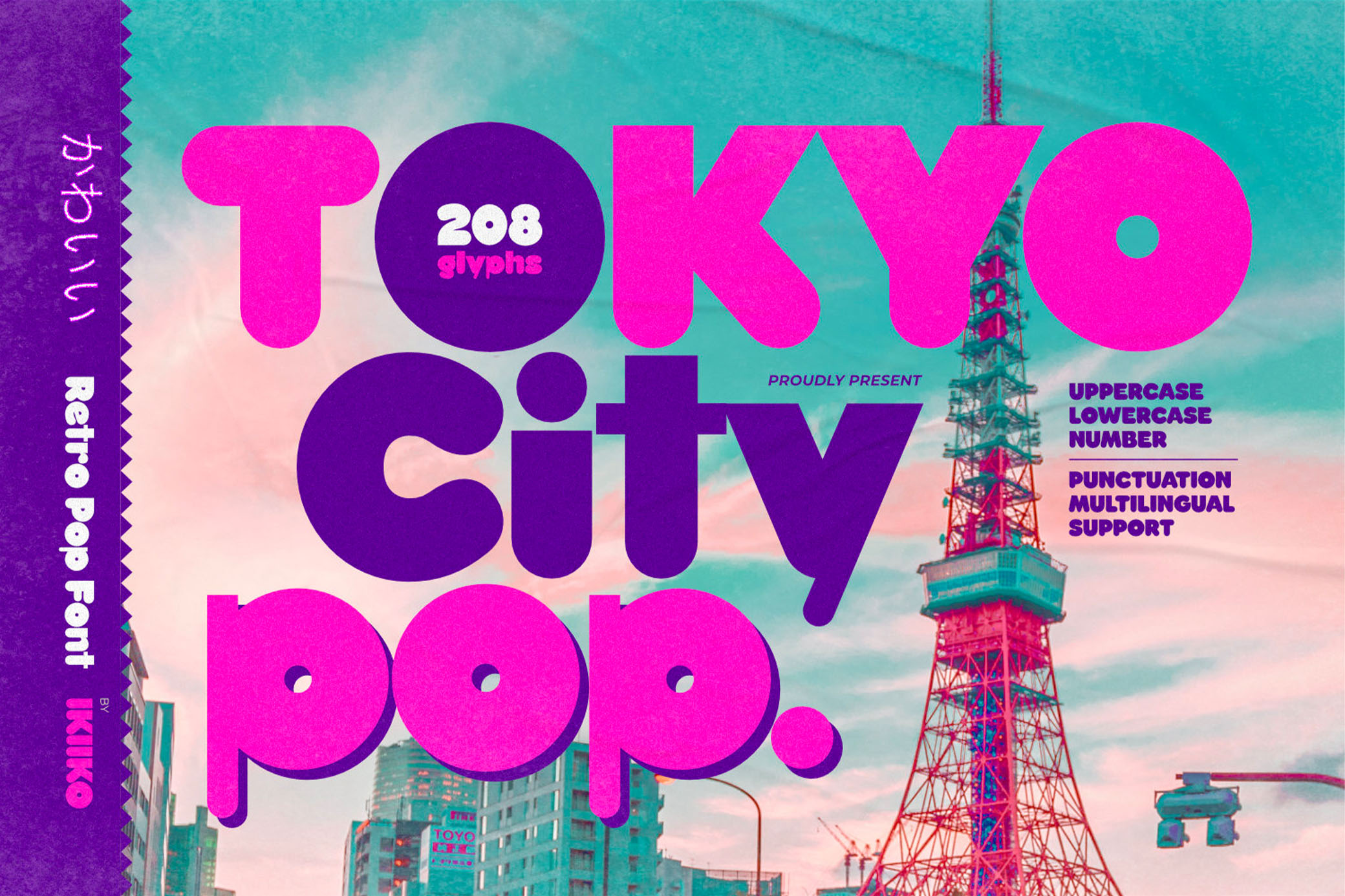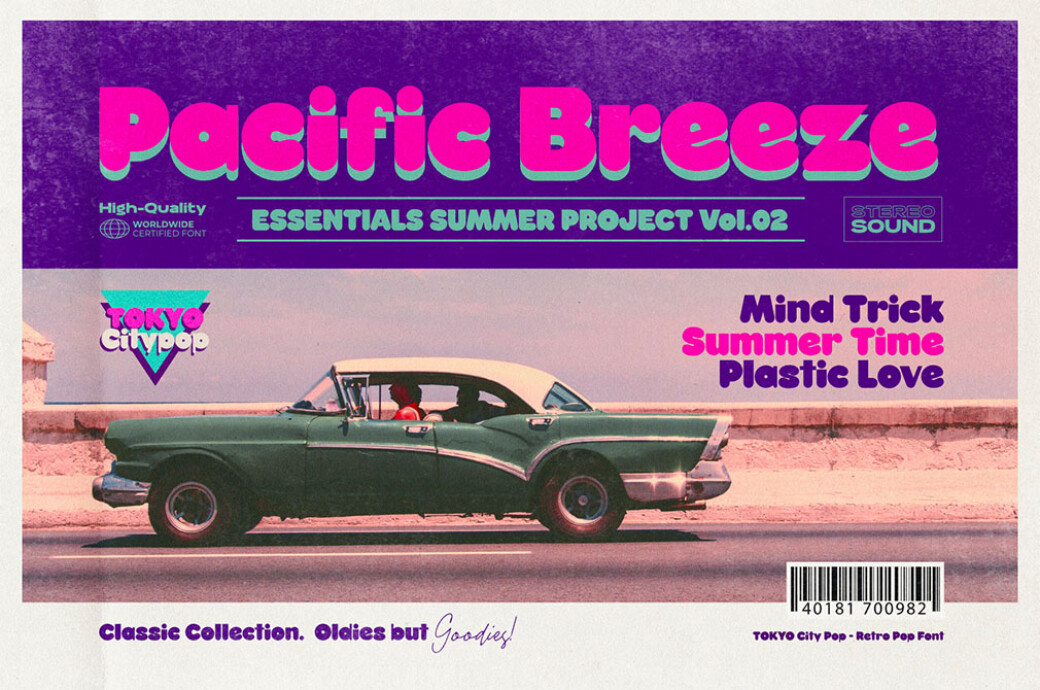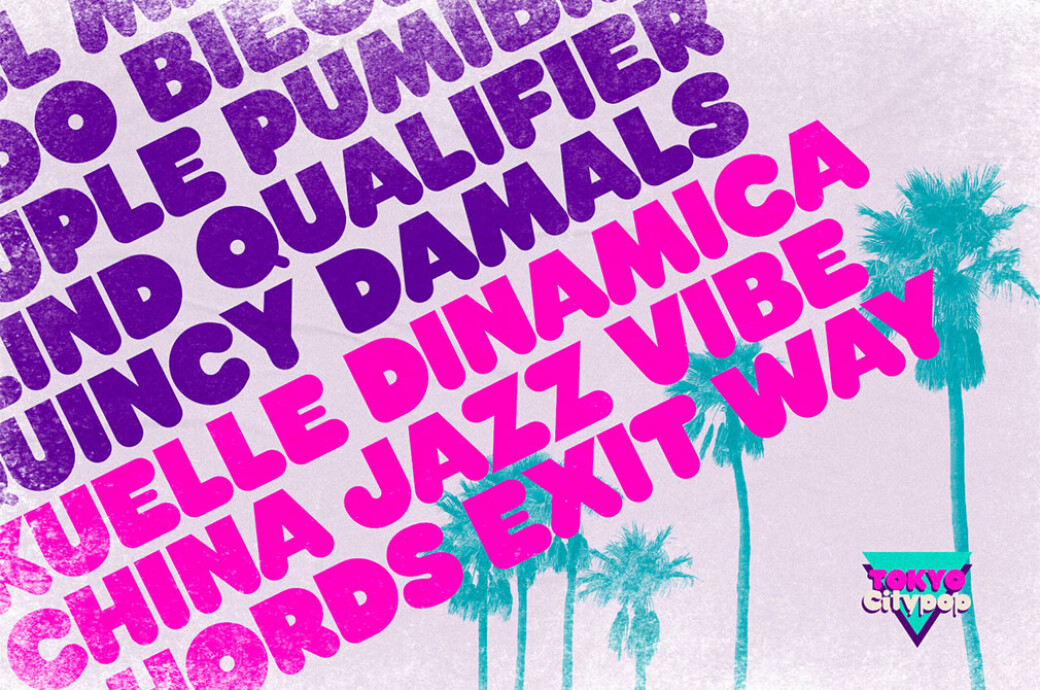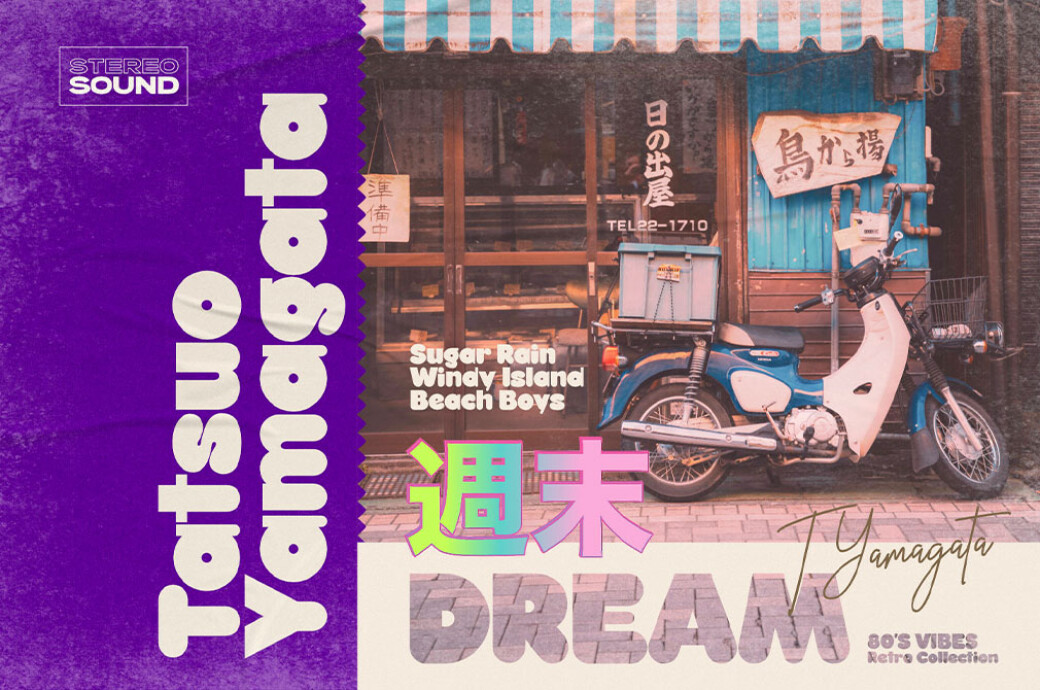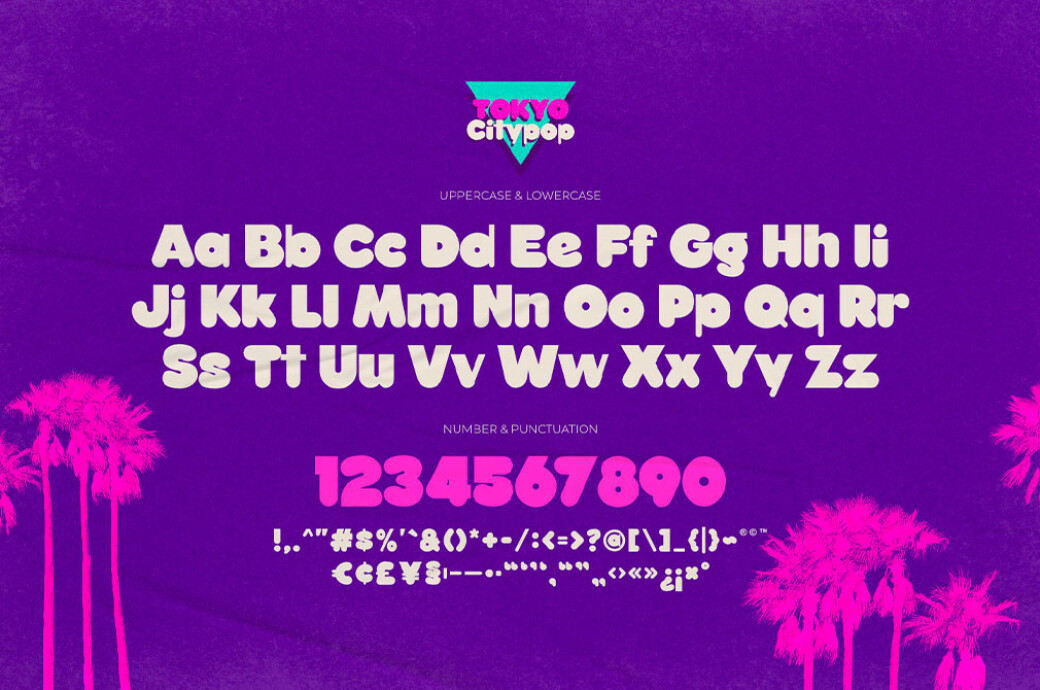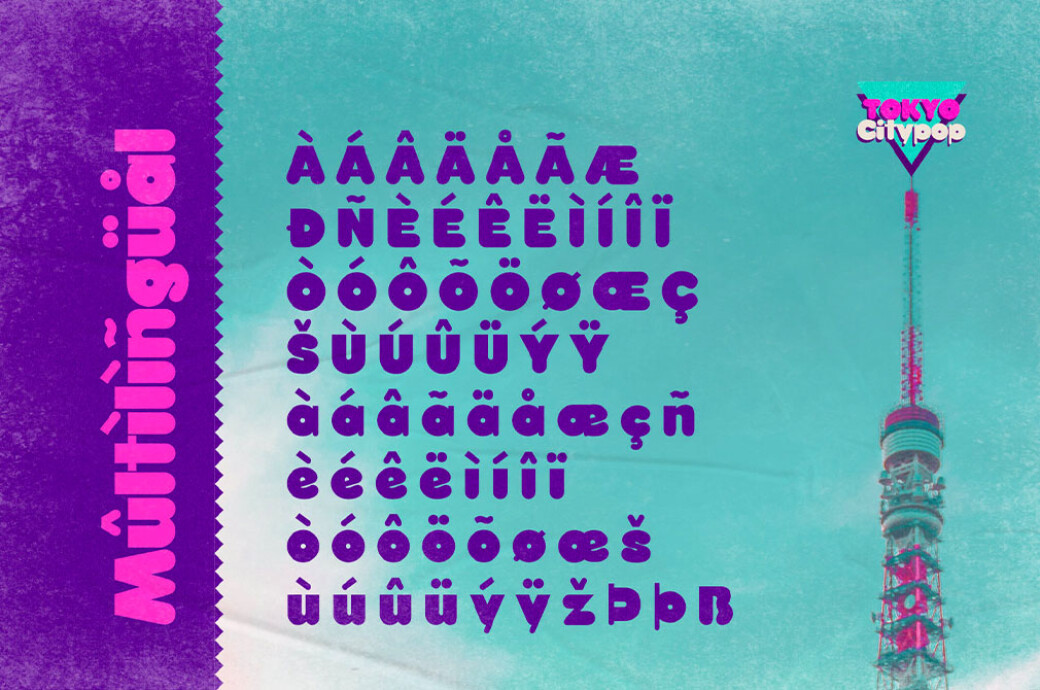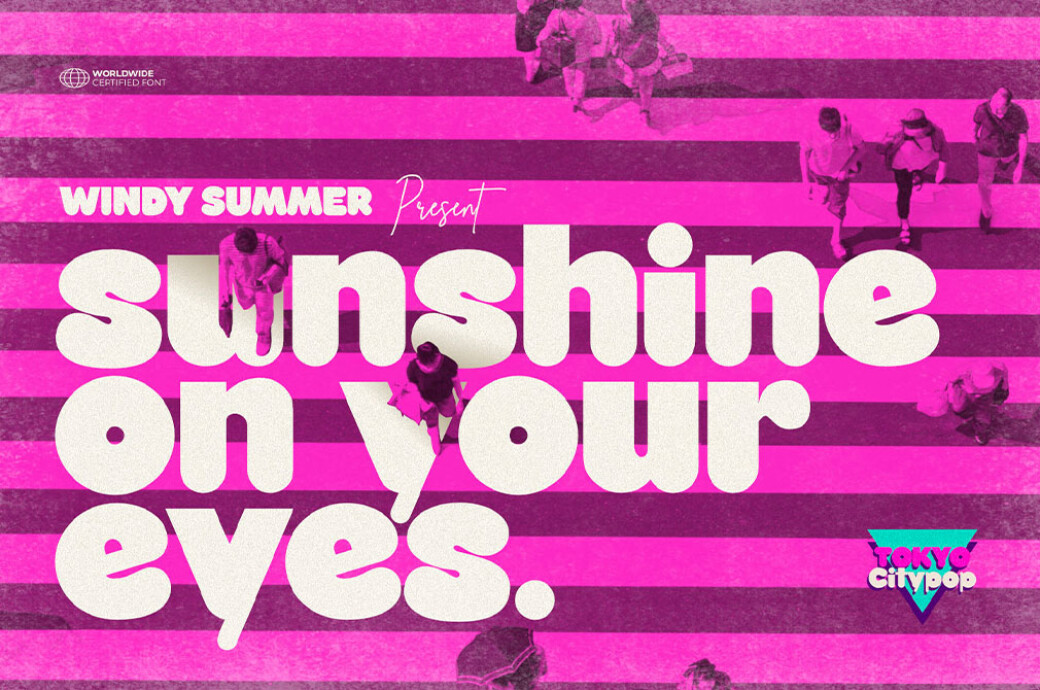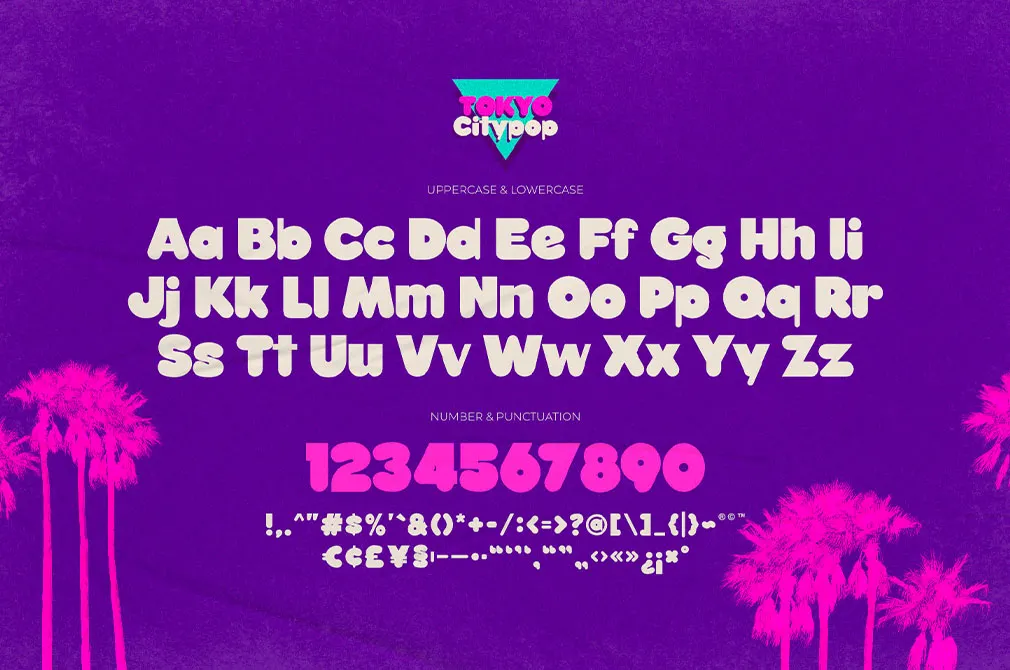
Tokyo City Pop — Retro Font
Feel the vibes of Shibuya! Tokyo City Pop is a nostalgic throwback to Japan of the 80s with its colorful magazines, first J-rock bands, and street fashion.Tokyo City Pop yells instead of merely speaking, and its letters vibrate with the energy of the Shinjuku and Ginza districts. The font covers a complete character set, including punctuation, numbers, and multilingual support. It will work well for vintage stuff, retro poster layouts, magazine designs, packaging, food & beverages.